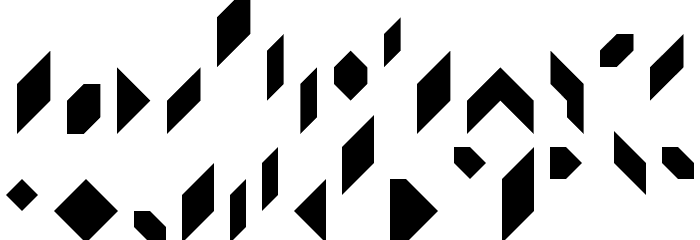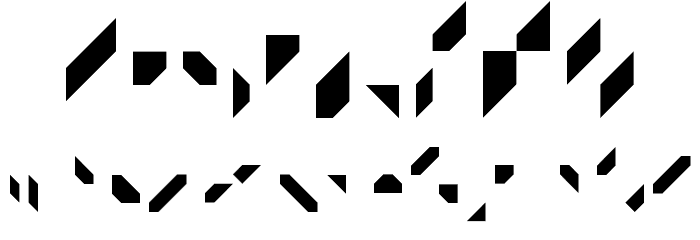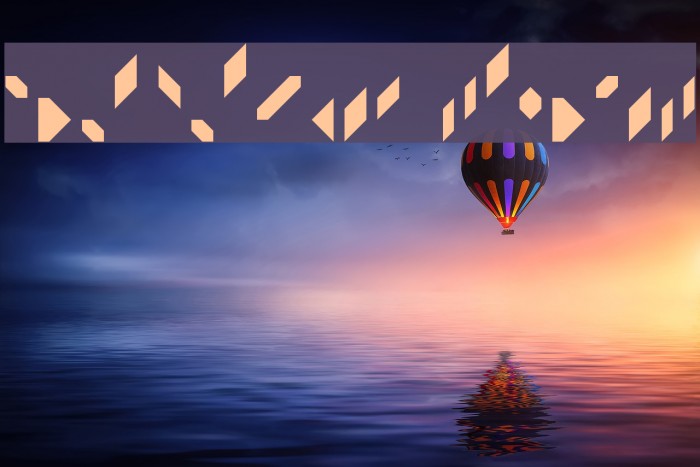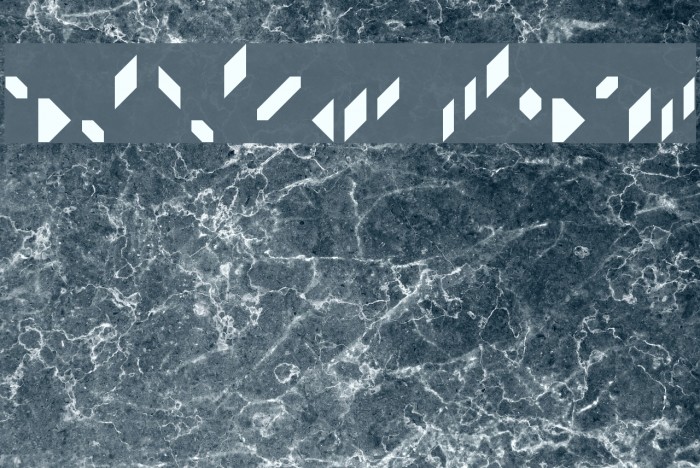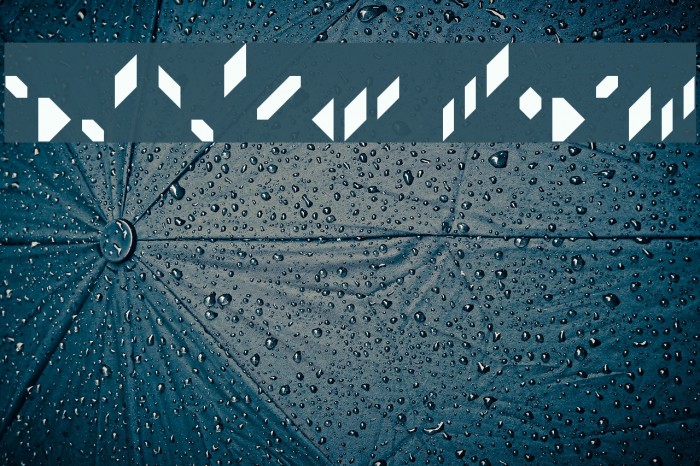
zuptype_SIM Regular Font
This font features a highly abstract and geometric design, characterized by its use of bold, angular shapes and patterns. Each character is composed of a series of triangles and parallelograms, creating a visually striking and modern appearance. The font lacks traditional letterforms, instead opting for a unique, almost cryptographic style that challenges conventional readability. Its design is reminiscent of digital or futuristic aesthetics, making it suitable for projects that aim to convey innovation or avant-garde themes. The uniformity in the geometric shapes across all characters provides a cohesive look, while the absence of curves and the reliance on sharp angles contribute to its distinctiveness.
A geometric, abstract font with bold, angular shapes and a futuristic aesthetic.
- Proposed Projects: Ideal for digital art, futuristic branding, avant-garde posters, and experimental design projects.
- Use Case: Logos, Headlines, Digital Art